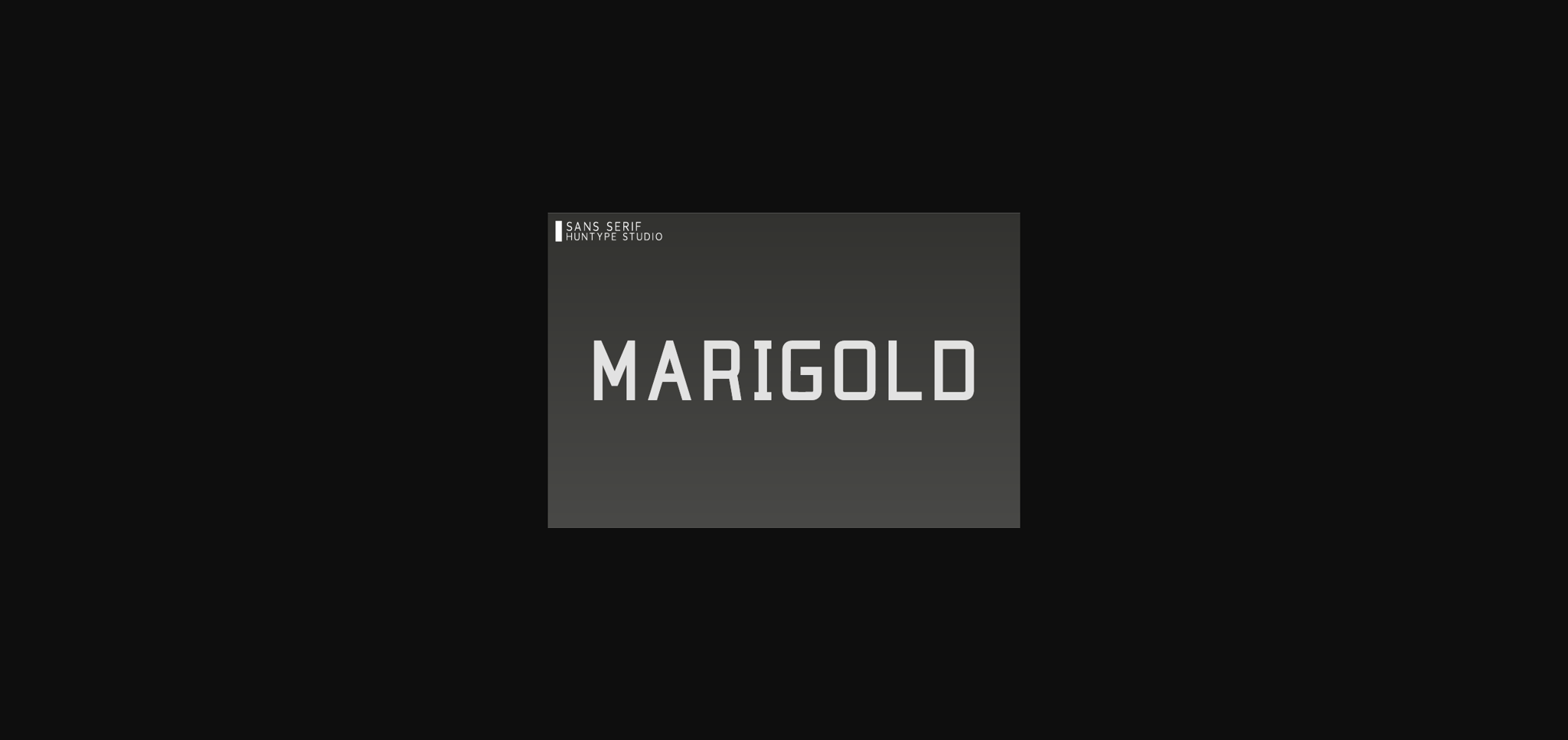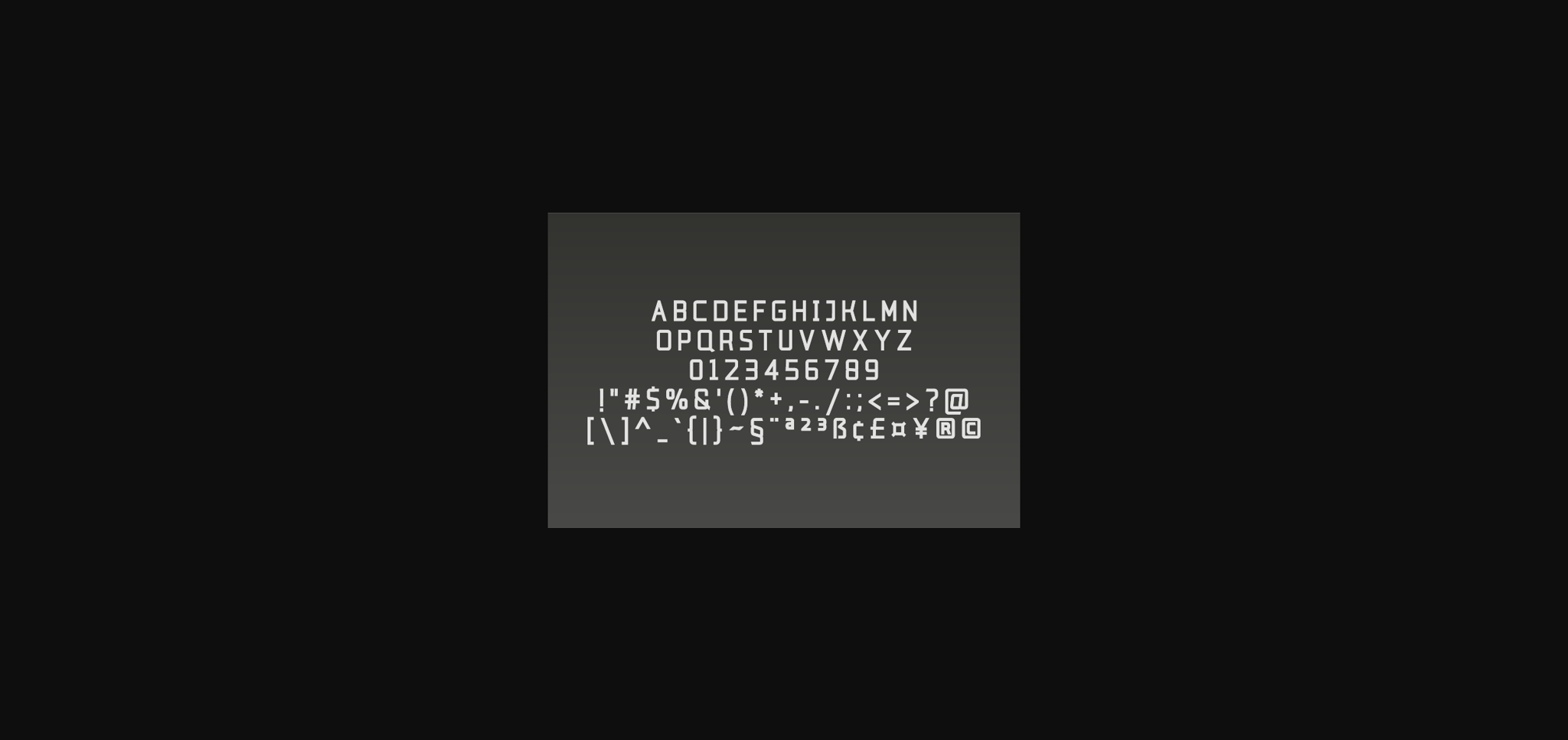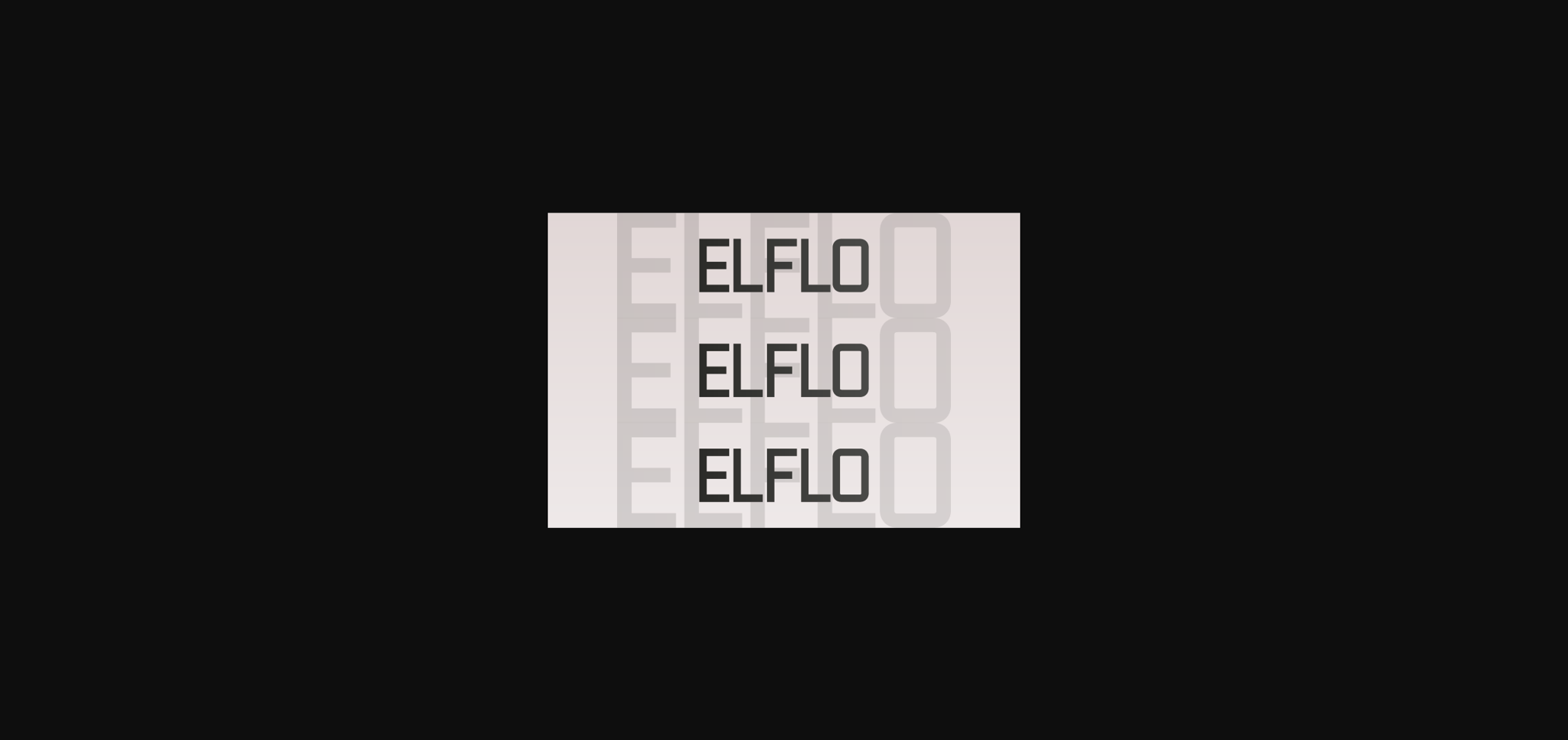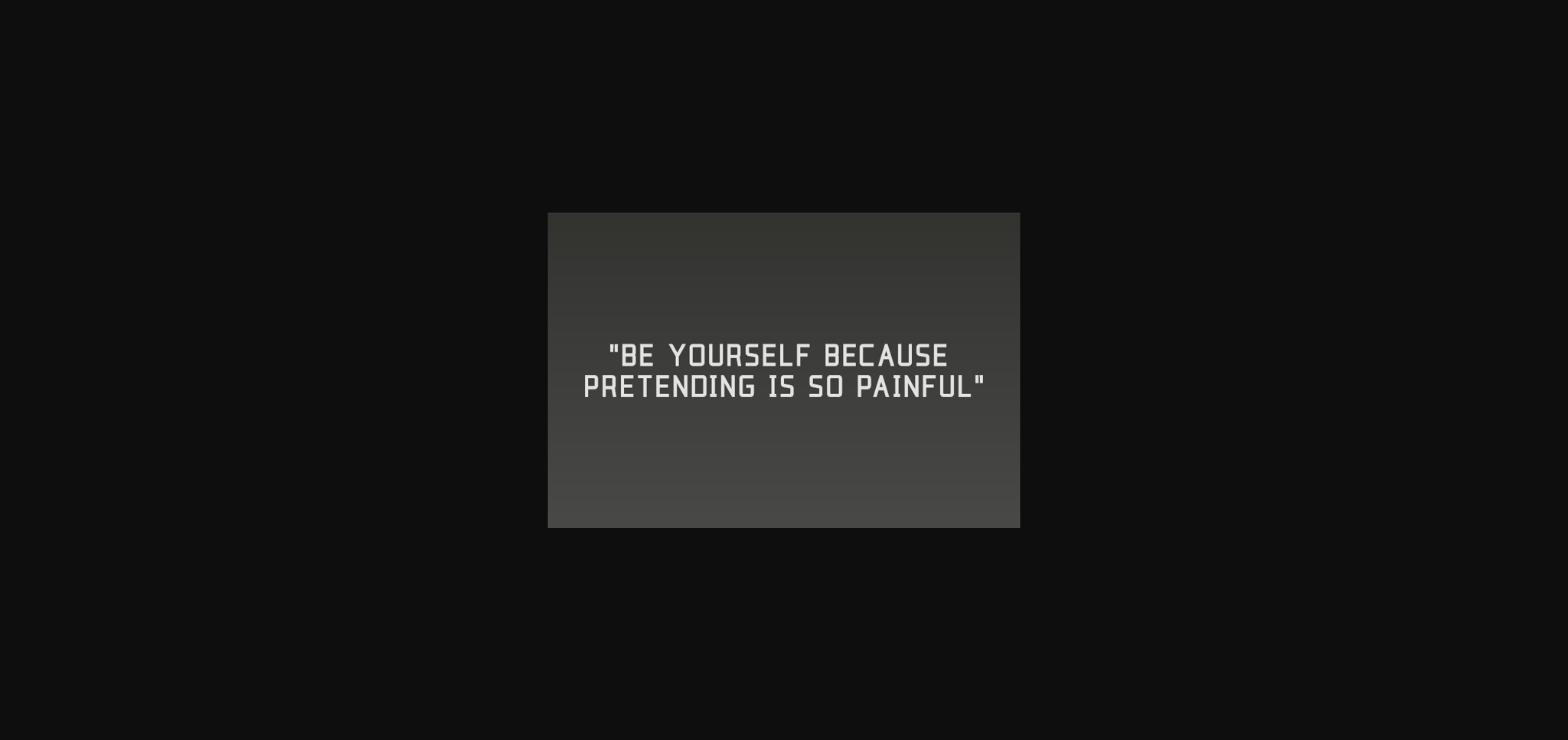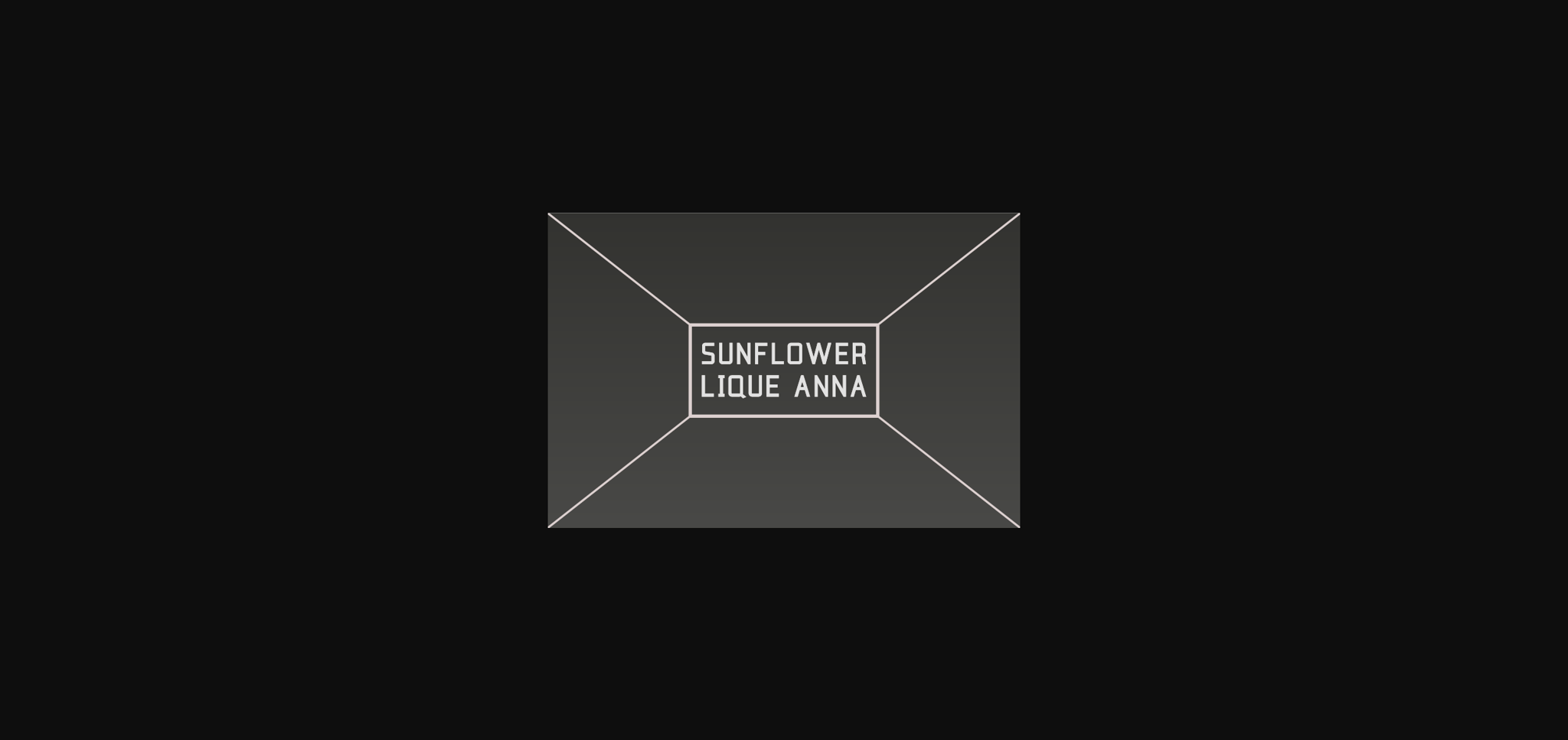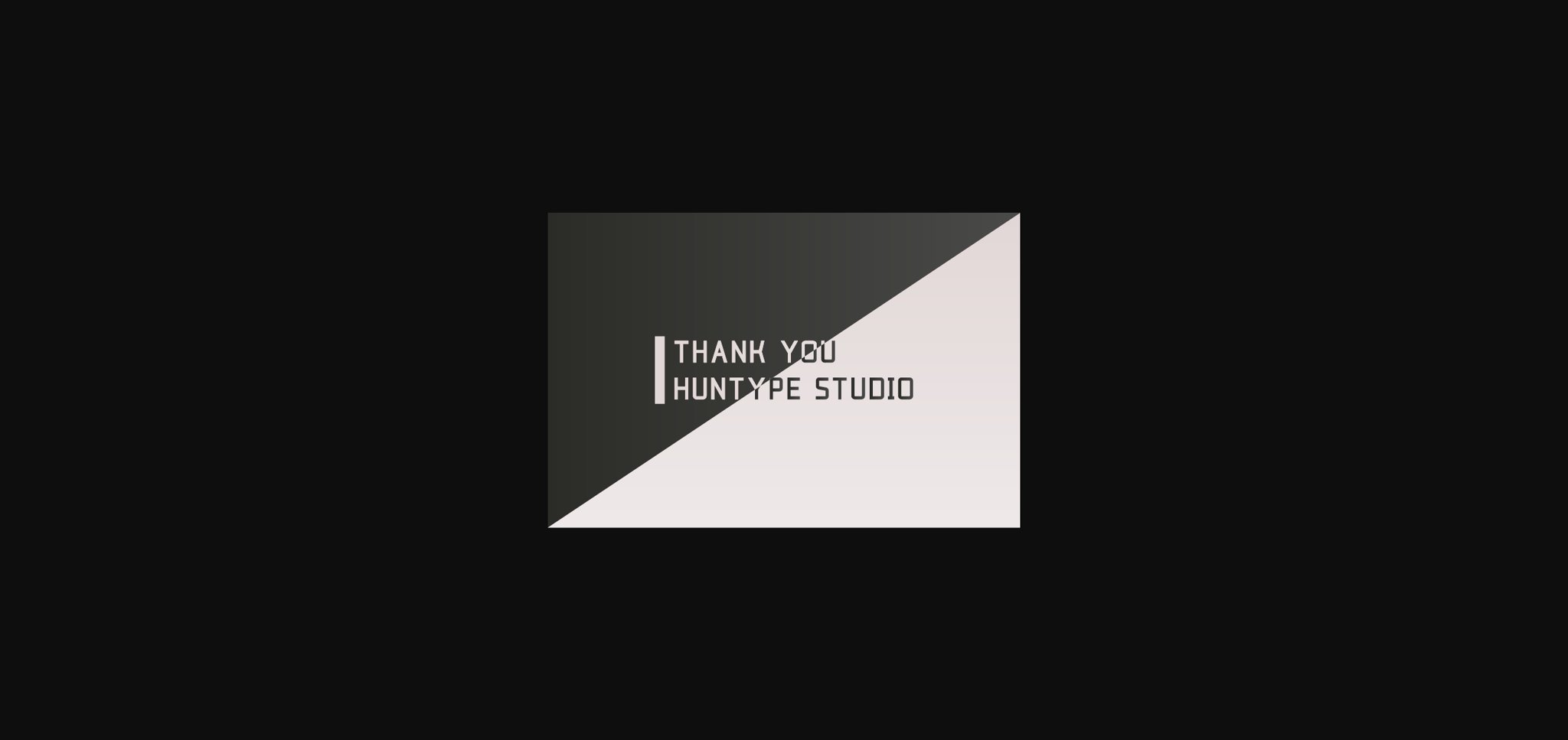
Marigold Font
About Marigold Font
Marigold emerges as a bold and straightforward sans serif font, designed to seamlessly integrate into a wide array of projects with its versatile nature. With its bold demeanor and clean lines, Marigold has the ability to elevate your creative ideas and ensure they stand out with effortless impact.
The appeal of Marigold lies in its simplicity and adaptability. Whether you’re crafting logos, designing headlines, or developing branding materials, this font’s bold and simple style adds a touch of boldness to your projects. Its clean lines and balanced proportions ensure clarity and readability, making it suitable for a diverse range of applications.
One of Marigold’s key strengths is its versatility across different projects and design aesthetics. Whether you’re working on digital interfaces, print publications, or marketing campaigns, Marigold seamlessly blends into various design contexts, maintaining consistency and coherence throughout your creative endeavors.
Moreover, Marigold’s bold sans serif design allows for creative flexibility and expression. Whether used for body text or as a headline font, Marigold brings a sense of impact and prominence to your designs, helping them to stand out and leave a lasting impression.
Incorporating Marigold into your creative ideas is certain to elevate their aesthetic appeal and captivate your audience’s attention. Whether you’re a seasoned designer or an aspiring creator, Marigold offers a versatile and stylish solution for bringing your vision to life with confidence and flair.
In summary, Marigold is more than just a font; it’s a powerful design asset that empowers you to create visually stunning and impactful projects. With its bold and simple sans serif design, Marigold adds a touch of boldness and distinction to any design endeavor. Embrace Marigold and discover how it can enhance your creative ideas with effortless style and impact.